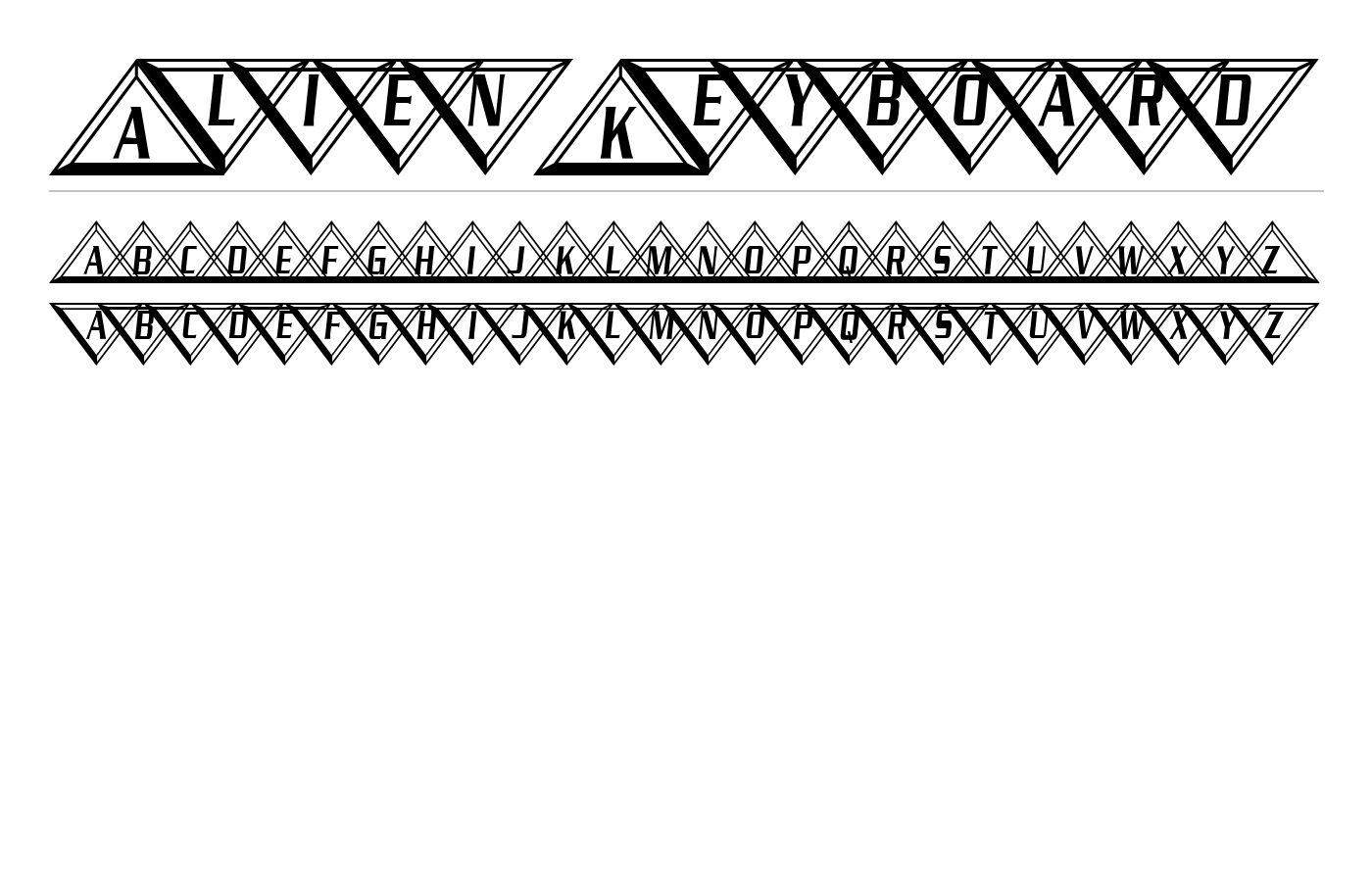
Alien Keyboard Font is a highly decorative, uppercase-only display typeface characterized by its unique triangular letterforms that intersect with bold, geometric lines. Its futuristic and experimental design makes it ideal for creative, sci-fi themed projects, logos, or posters where a striking, unconventional look is desired. This font stands out best in large sizes where its intricate shapes and sharp contrasts can truly captivate the viewer.
Alien Keyboard Font
About Alien Keyboard Font
| Font family | Alien Keyboard Font |